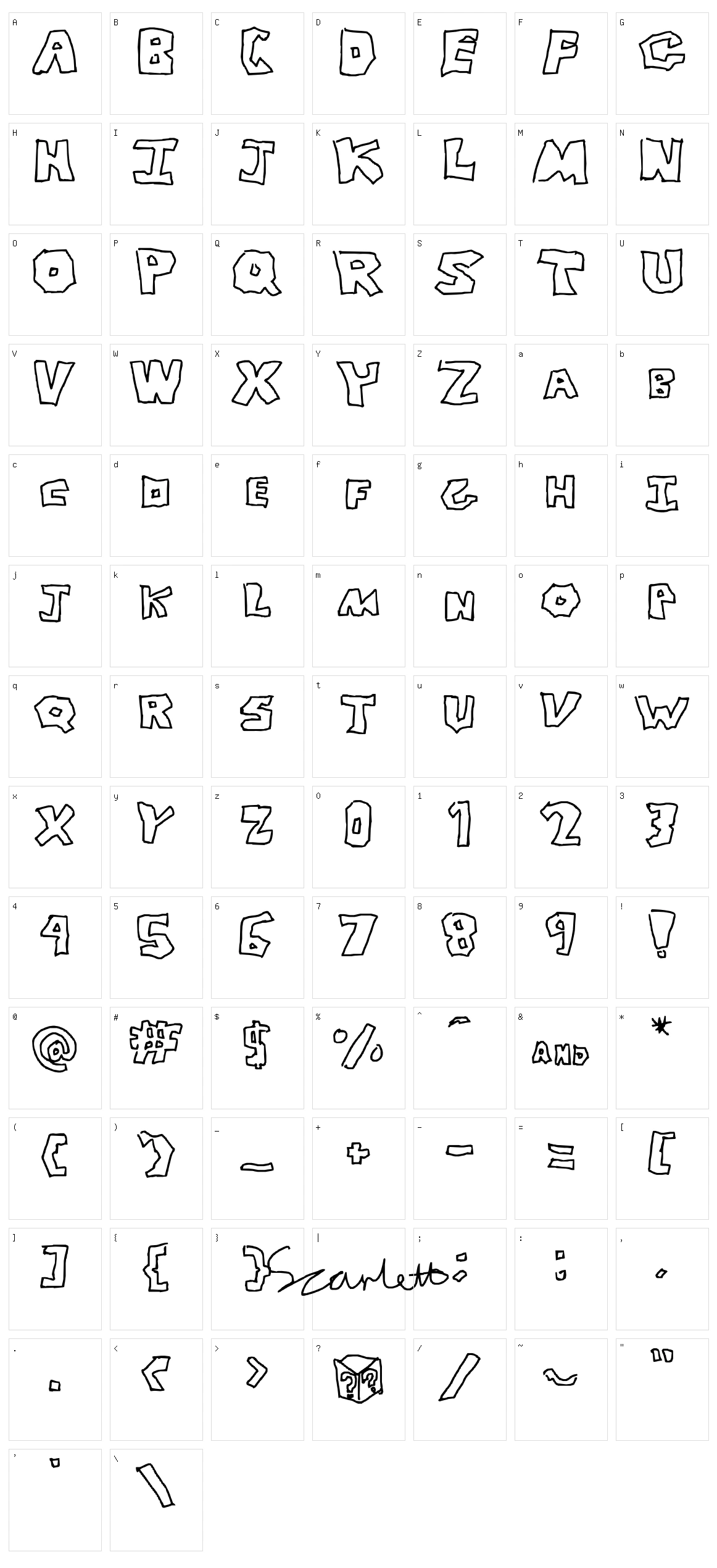
The free font Re-Donk-U-Less is carefully designed by Scarlett, showcasing a thoughtful balance of creativity and usability and falls under the Cartoon font style. When you download the ZIP file, it contains only 22.49 KB of font files, making it lightweight and quick to download. Please review the license details below to understand permitted usage and distribution rights. If license information is not available, we recommend using this font for personal projects only or contacting the author directly for commercial usage permissions.